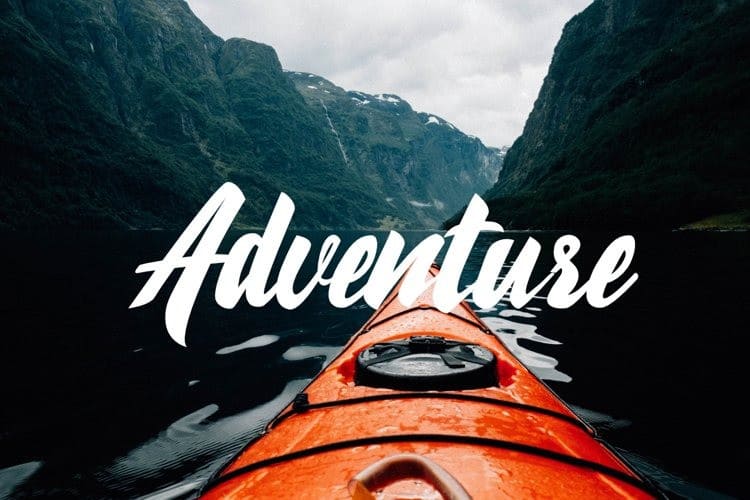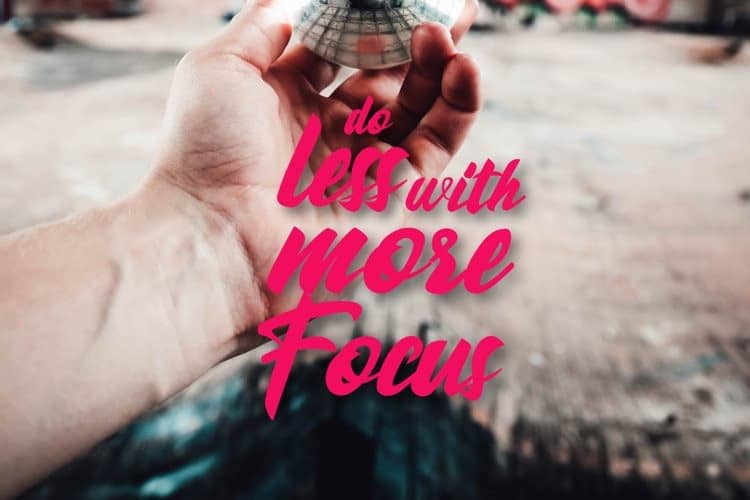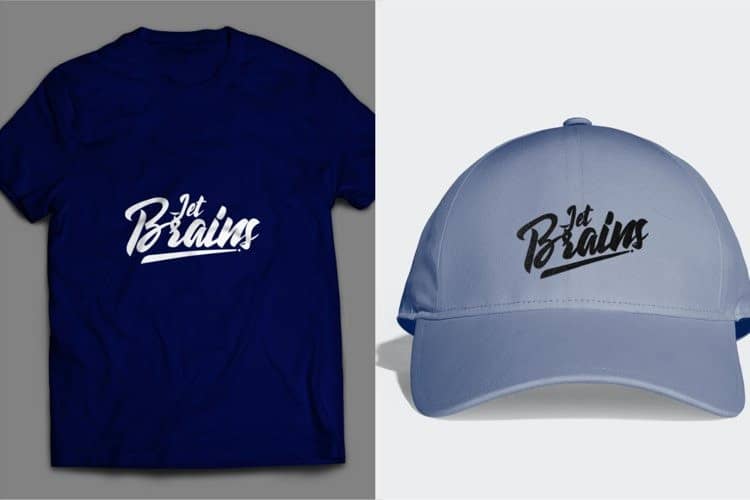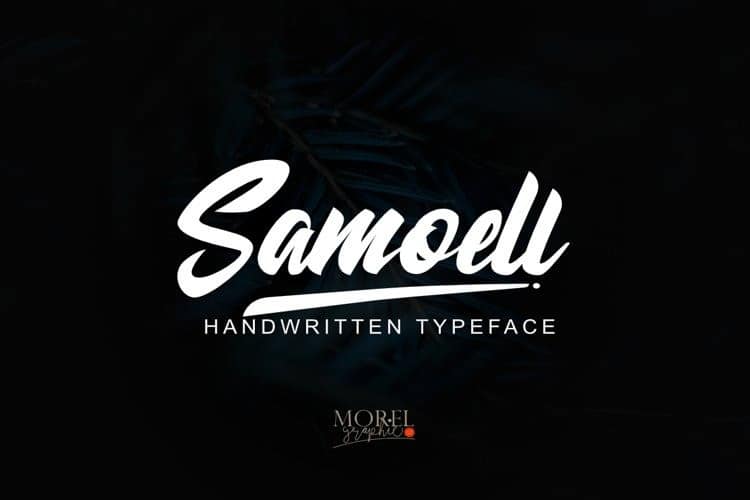
Samoell Script Font
Introducing Samoell Script Font a script typeface with sharp and rough character. Ideal for logos, name tag, quotes, product packaging, merchandise, social media & greeting cards. It contains a full set of lower & uppercase letters, alternative characters, a large range of punctuation, numerals, and multilingual support. The alternative characters in this font were divided into several OpenType features such as Stylistic Alternates, Stylistic Sets, and Ligature.